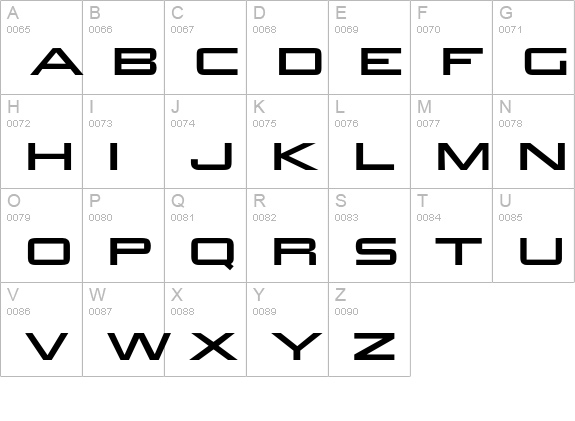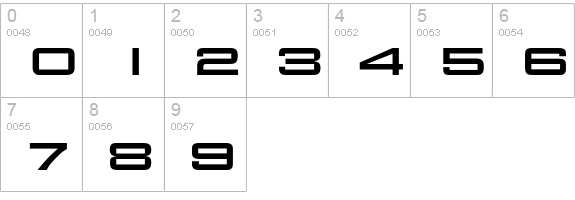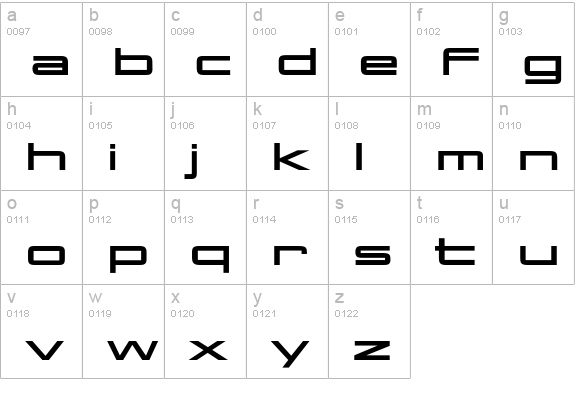
Aggie-Normal is the standard, neutral variant in the Aggie typeface family \xE2\x80\x94 well suited to general body text, paragraphs, and standard typographic work.